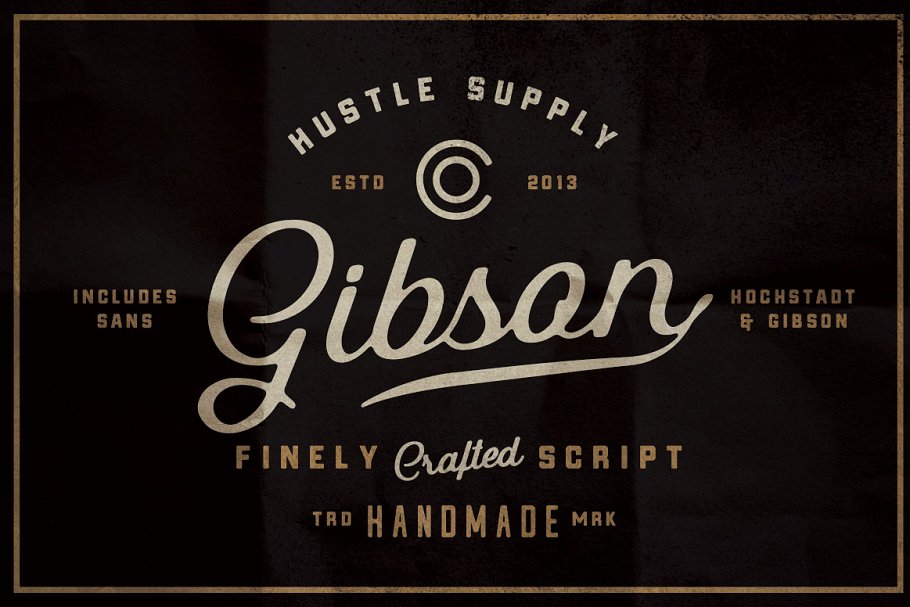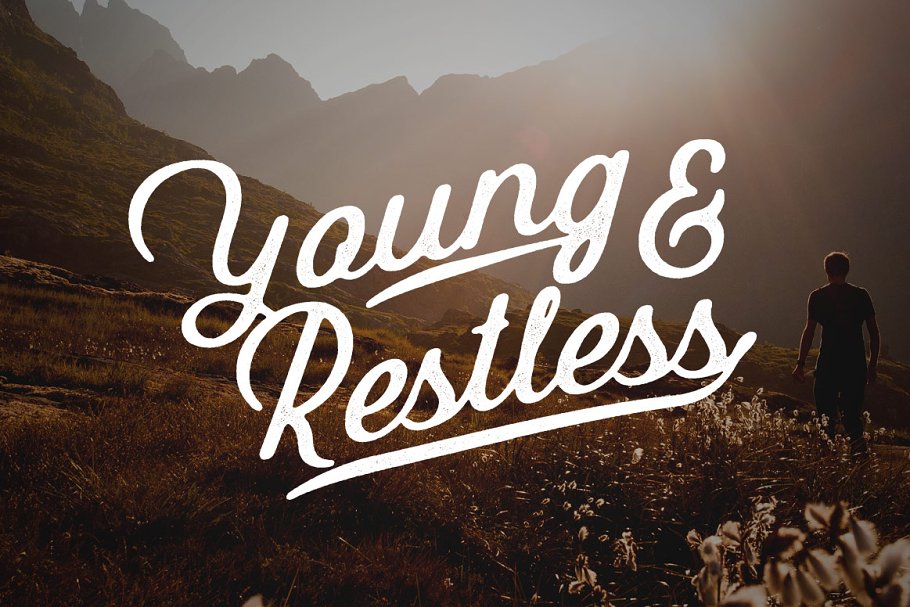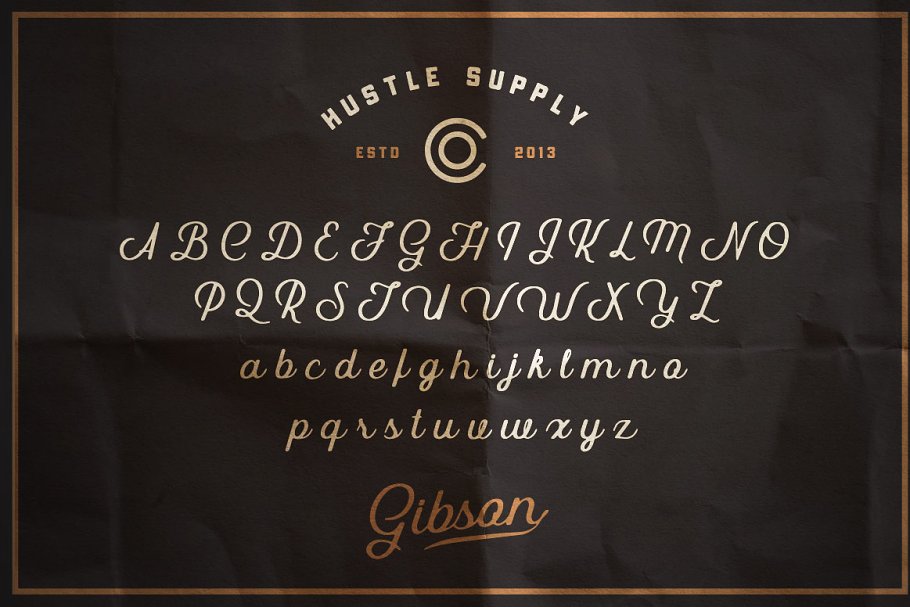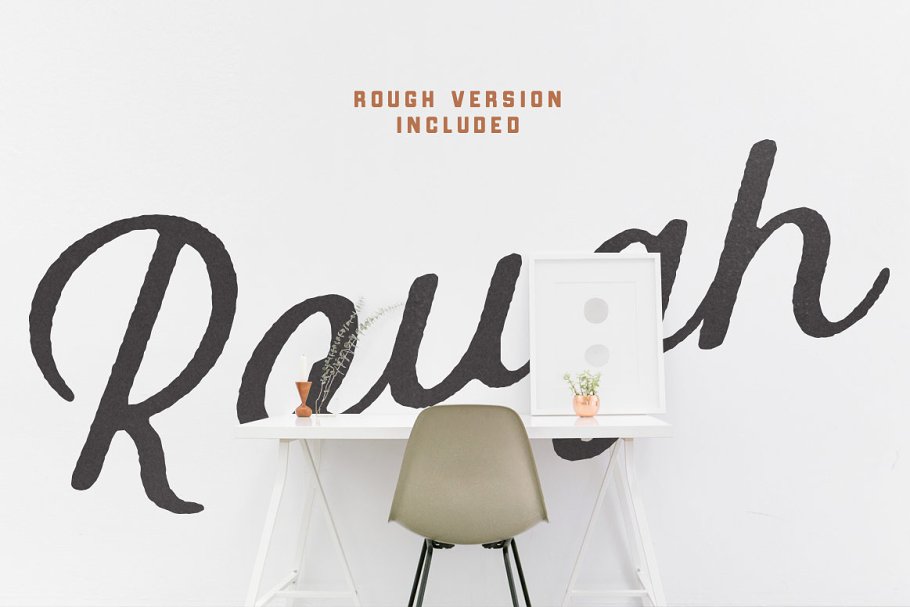
About the Gibson Script Extras Font
Introducing, Gibson Script!Gibson comes with a perfect pairing partner, Hochstadt a Vintage Whiskey Inspired Sans SerifGibson Script is an old time inspired script typeface that pairs perfect with bold, tough type, Absolutely awesome for labels & logos, I started creating typefaces for the use in branding projects and I think that Gibson is the font that my Type Collection was missing